Imaginary
Exercises of illustrated letters within a vertical rectangle. These were fun to do but did not lead to immediate employment in publishing. Probably for the better. The spiky contrast letterforms found their way to LTR Principia. So I suppose that counts for something.
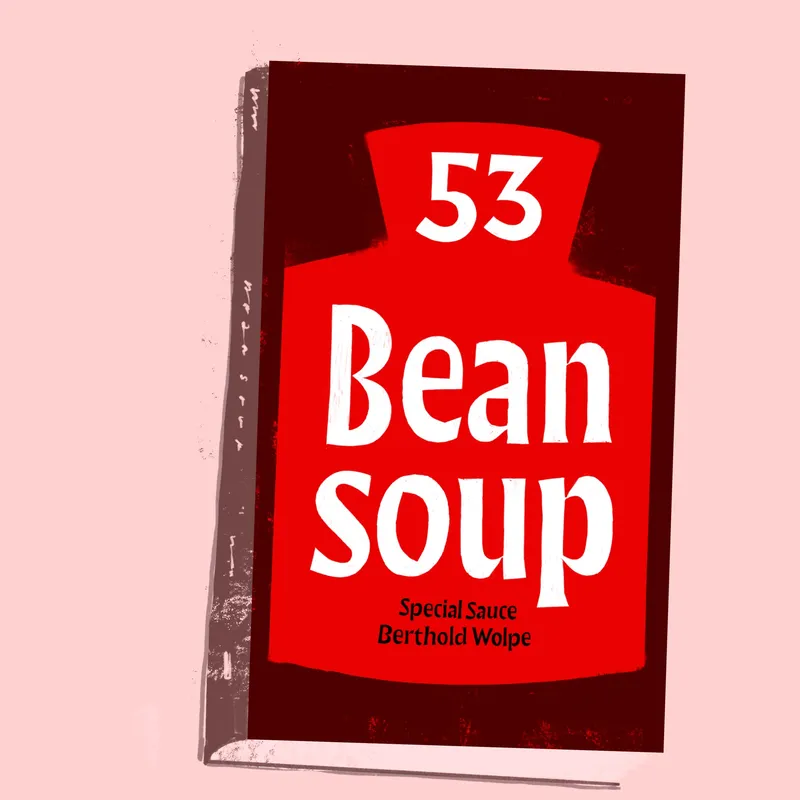
Bean Soup in some sort of confused Albertus. The flat top three. The triangular joint in the lowercase a.
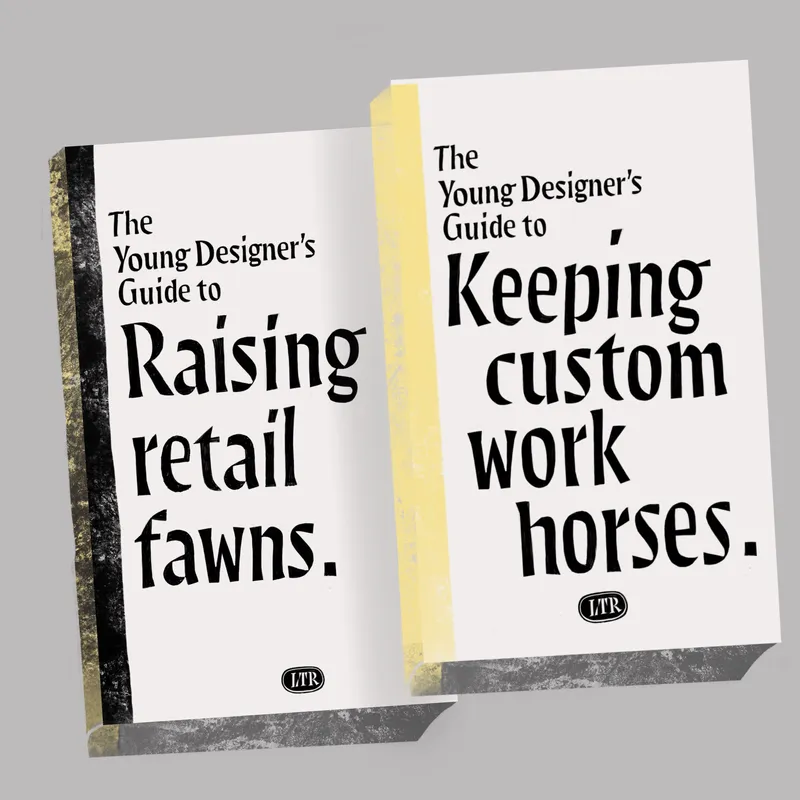
Fawns and workhorses. Explorations of letterforms and themes that eventually found a place in LTR Principia
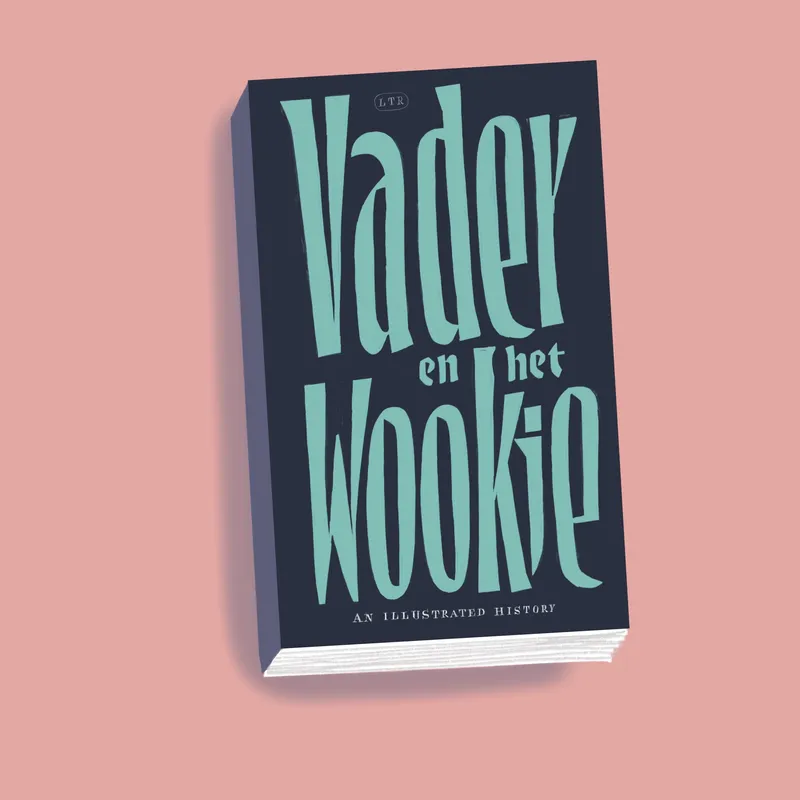
The Dutch had always known Darth was Luke’s father. Imagine a novel Vader and the Wookie, in a style that resembles seventies literary publishing in The Netherlands. Lots of sitting around in depressing rooms and long monologs.
So, why present work online when it will all just be consumed by machines that turn it into expensive tokens? You’re here, reading this. So there is some hope. The lettering in these drawings are also where the new ideas come from. So I think it would be fun to see them.